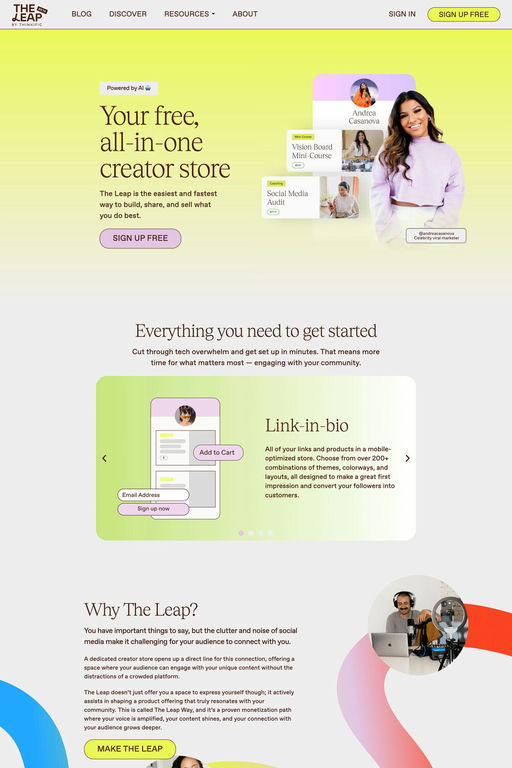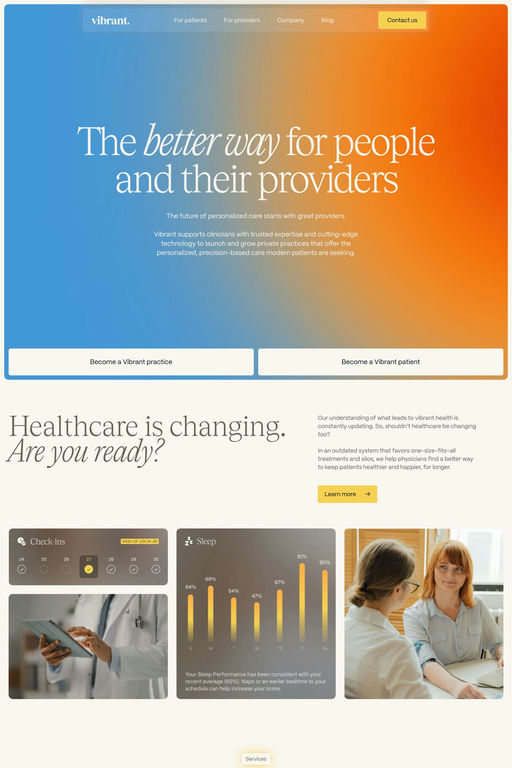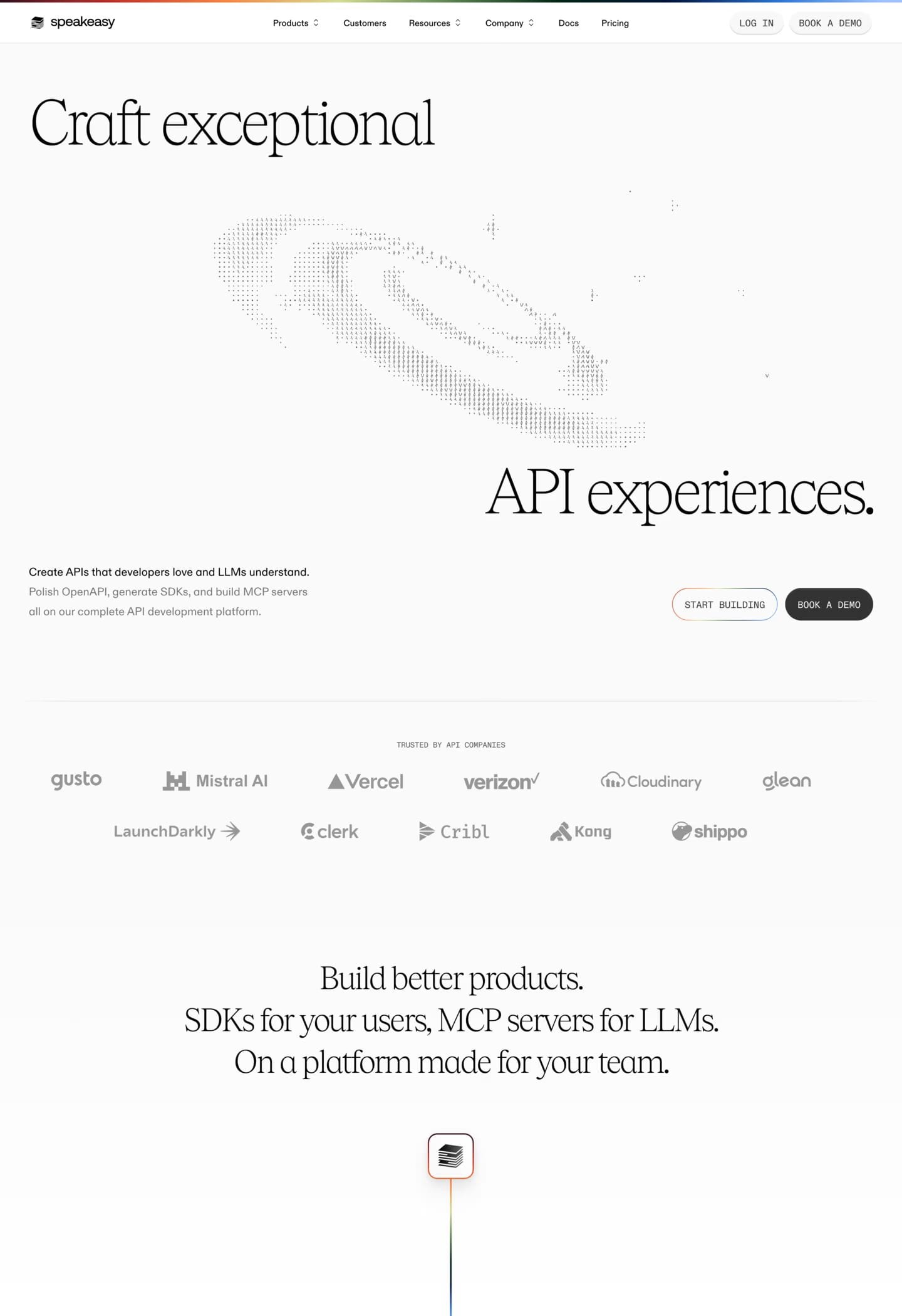
Tobias is a serif typeface from Displaay Type Foundry.
Tobias is a serif typeface with a baroque and transitional appearance. His weight stress is still diagonal like in Old-Style or Renaissance typefaces. It’s x-height is higher than usual and connection on stems is not smooth (arches are punched into stems). It stands next to his brother Teodor and sister Reckless. As Tobias originates from Baroque roots appropriate terminals are made up from drops and ears. The typeface includes numerous alternates which play with different directions of serifs.